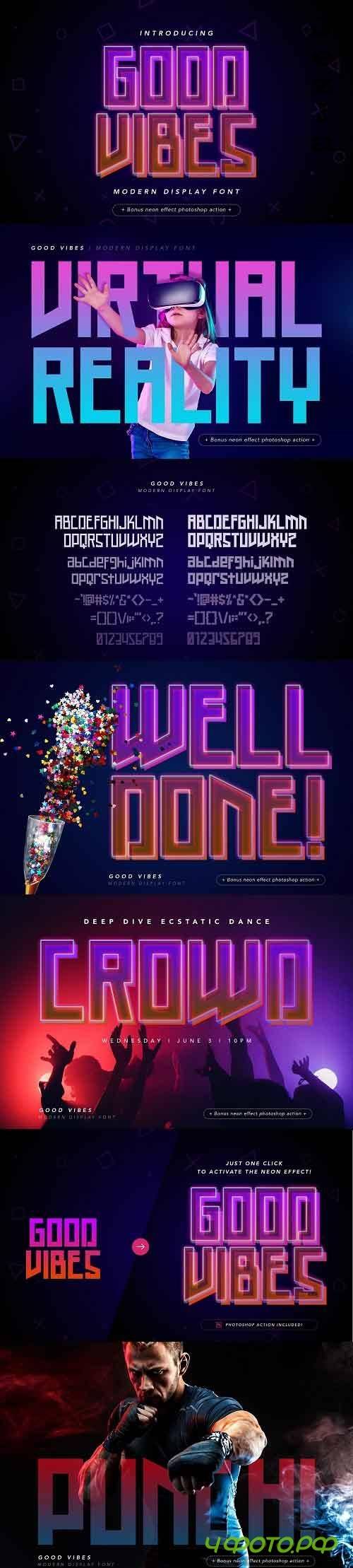
Good Vibes Modern Display Font - 4444220
Good Vibes was born inspired by neon, modern technology and sport. It is a display font that perfect for logo, quote text, dark theme, music and a perfect fit for a sport themed - or a stylish text overlay to any background image. It built with a high level of legibility.
Good Vibes comes with a neon effect Photoshop action bonus. It helps you make a neon effect for this font easily!
Main Features:
·Uppercase & Lowercase letters
·Regular and Bold weight
·Numbering and Punctuation
·Bonus neon effect (Photoshop action)